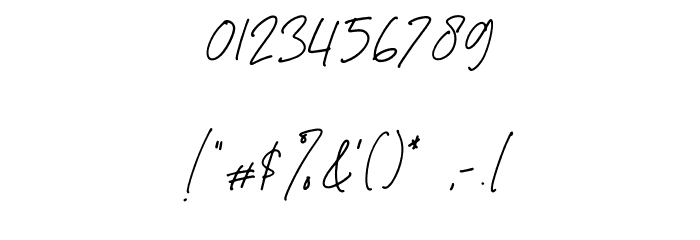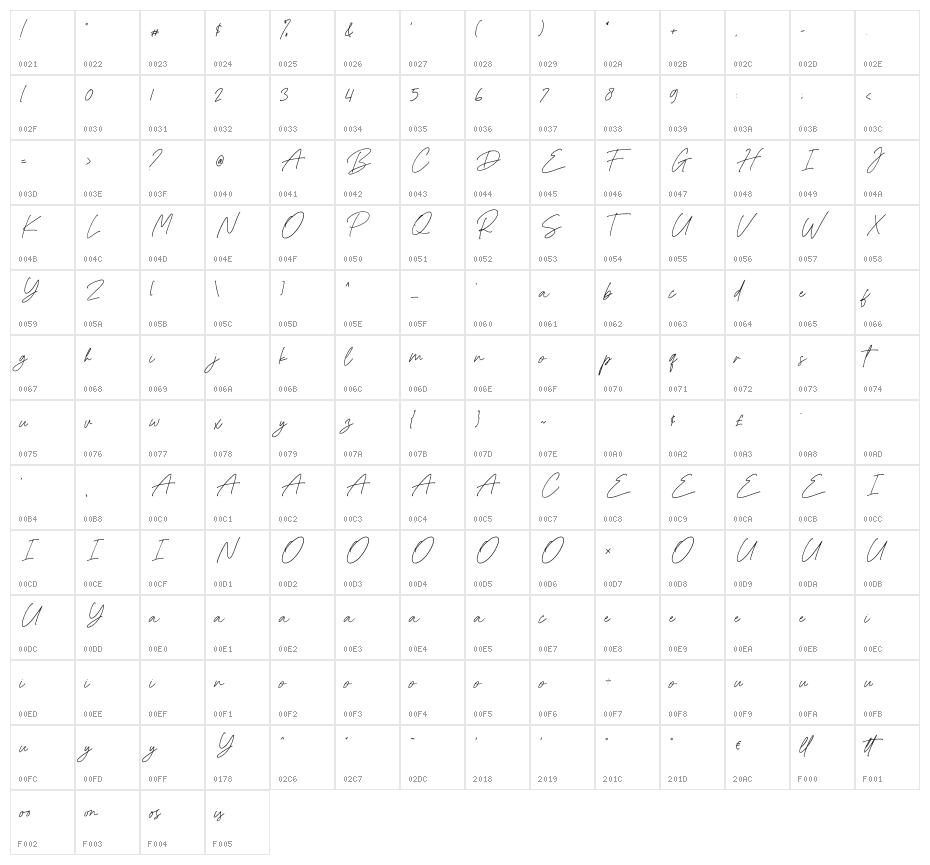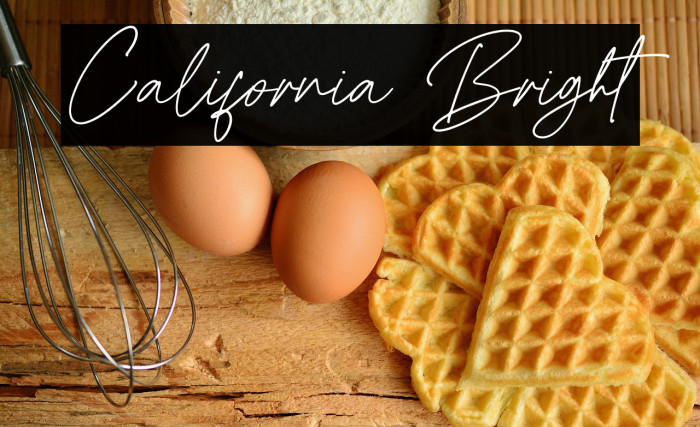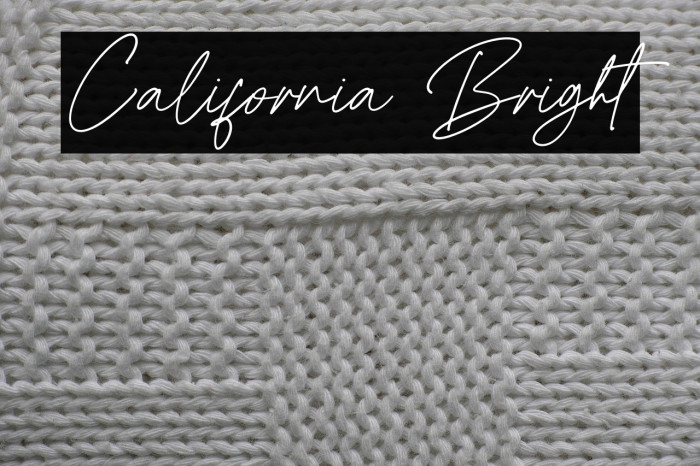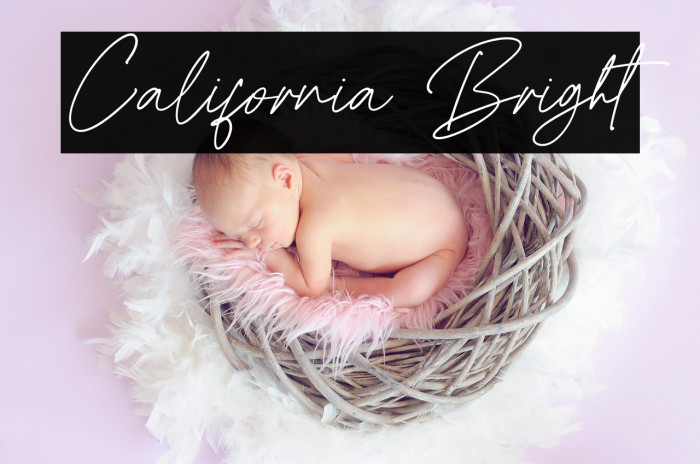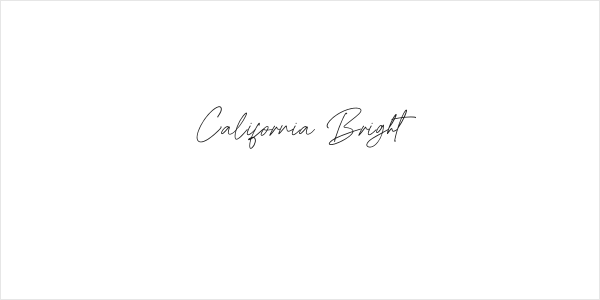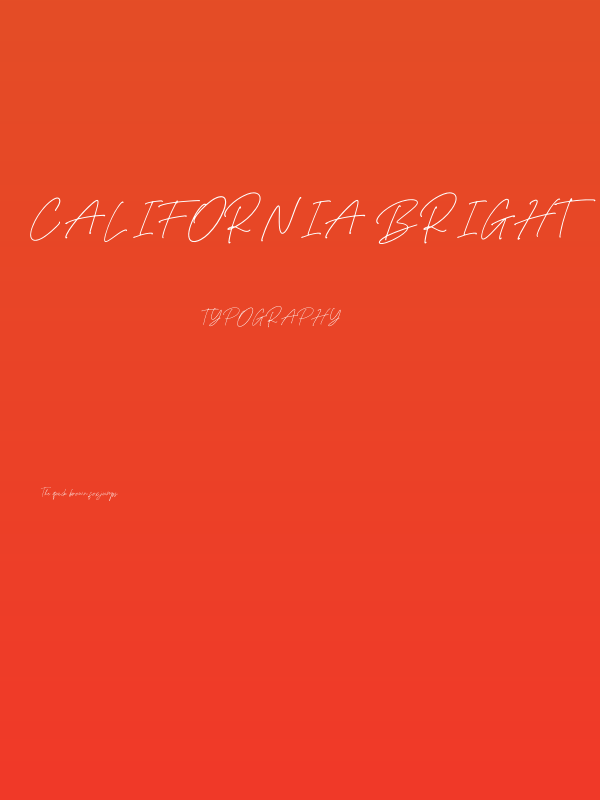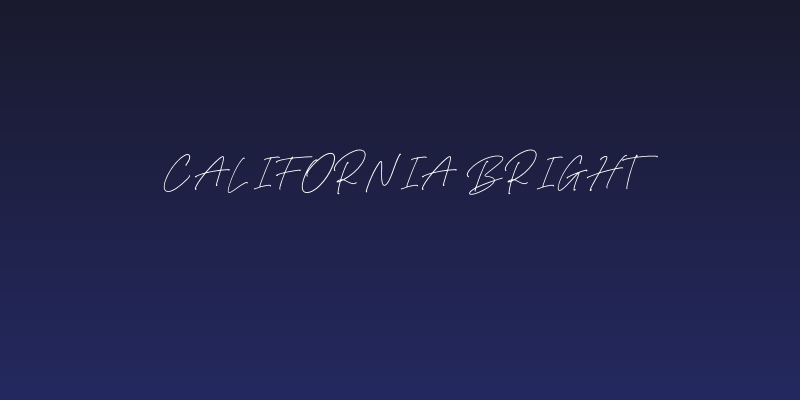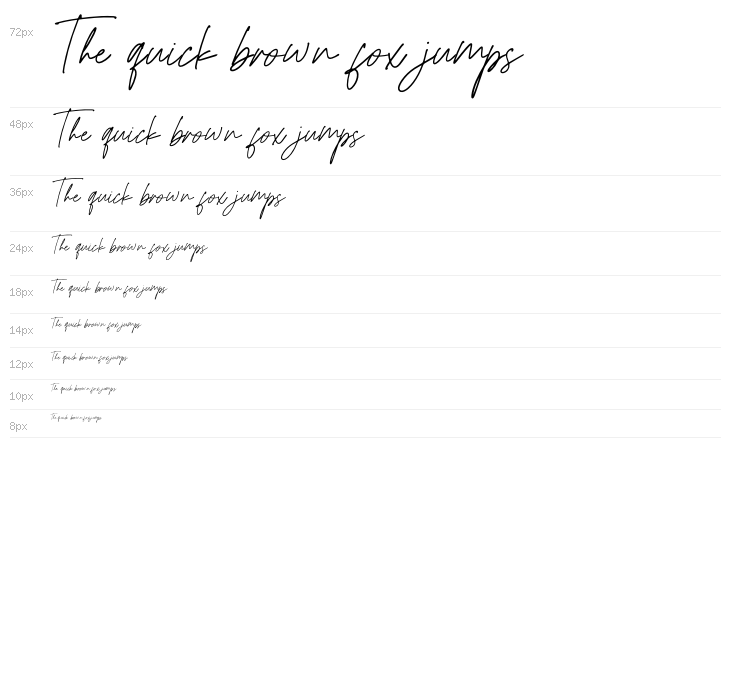
California Bright Font
California Bright Description
This font exudes a casual elegance with its fluid, handwritten style. The letters are gracefully connected, creating a seamless flow that mimics natural handwriting. The uppercase letters stand tall with a slight slant, while the lowercase letters maintain a consistent rhythm, enhancing readability. The numerals and special characters are crafted with the same attention to detail, ensuring a cohesive look across all elements. The strokes are thin and delicate, adding a touch of sophistication without compromising legibility. This font is perfect for projects that require a personal, yet polished touch.